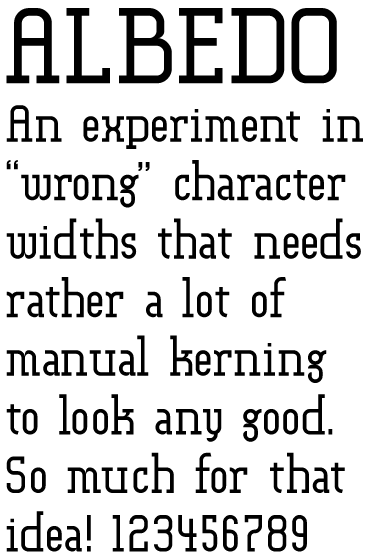
That actually looks cool! 9/10!
but V needs work. Diagonals at the bottom would do.
I'm a bit embarrassed by this now that I see it in the cold, hard light of day.It's like it can't make up it's mind whether to be a slab or not. Sometimes these hybrids have an extra frisson -- but most times they remind you why it's a good idea to paint inside the lines.
@intaglio: do you know the Barnbrook font "Drone", for which he also wanted to work on BAD proportions ? pushing also to different weights and shapes to finally reach a global esthetic evoking old Hispanic catholic churches ? You can check it out at Virusfonts.com, the site of Jonathan Barnbrook works !